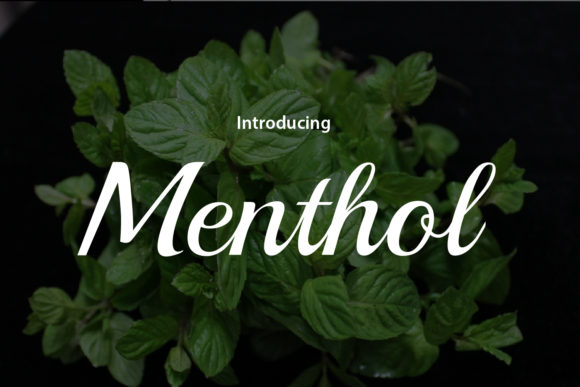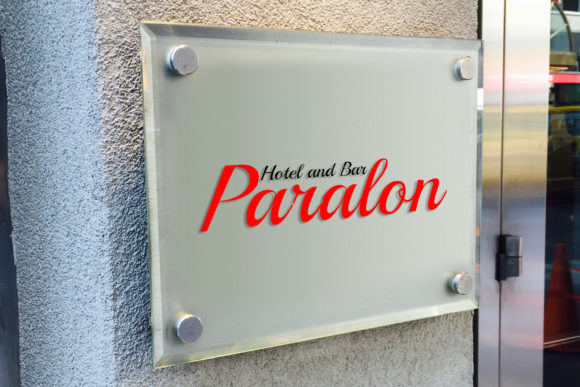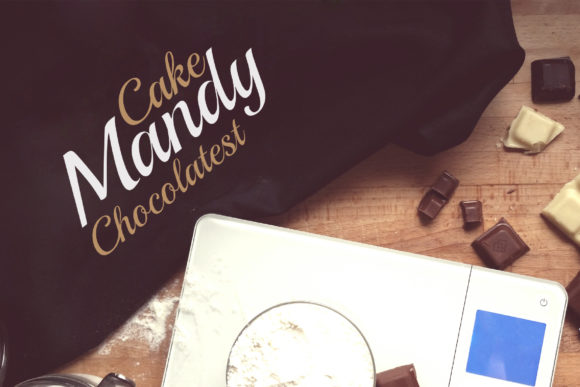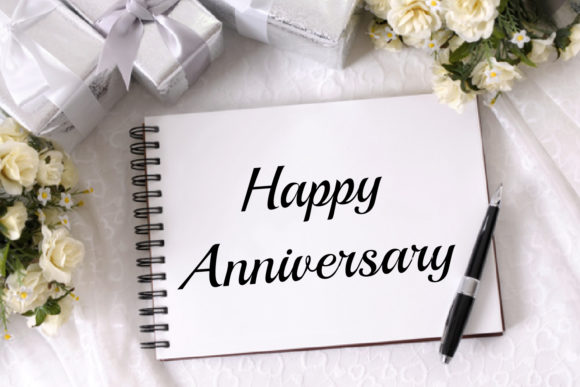
HomeScript FontsMenthol Font Script Fonts Menthol Font FacebookXPinterestWhatsApp Menthol Font Poster 2 Menthol Font Poster 3 Menthol Font Poster 4 About Menthol Font Menthol is a simple, yet charming script that’s perfect for delivering any message with confidence and style. DOWNLOAD ON CREATIVE FABRICAThis font is sold and delivered by Creative Fabrica. Font Canyon may earn a commission if you buy through this link. People also explored Fairy Tales Font Dark Heather Styled V-Neck Mockup Photo Red Stone Font Metaphor Font Limejuice Bing Charlie Angela Font Suburbia Wildest Font Dog Friday Font 333 0 TagsMenthol Font Previous articleWesthamp FontNext articleMaeghan Font LEAVE A REPLY Cancel reply Comment: Please enter your comment! Name:* Please enter your name here Email:* You have entered an incorrect email address! Please enter your email address here Website: Save my name, email, and website in this browser for the next time I comment. Personal Use Free Loving Personal Use Free Read more about this font Turpentine Personal Use Free Read more about this font Bosk Personal Use Free Read more about this font Market Love Personal Use Free Read more about this font BLOG How to Cut Any Font on Cricut: Convert a Font to SVG (Free) Turn any font into a clean SVG so it cuts crisp on Cricut - a quick 3-step workflow using a free font-to-SVG tool. Transform Your Website: Elevate Your Typography with 7 Best Web Font Generators Free vs Paid Fonts: Why Investing in Premium Fonts Is Worth It Where to Buy American Fonts Online in 2024